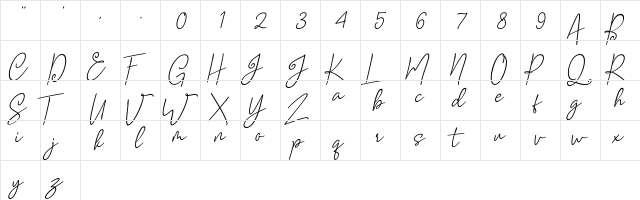
Mellati Regular
Design Context for Mellati Typeface
Mellati is a composed and adaptable typeface that performs quietly and consistently across a wide range of design contexts.